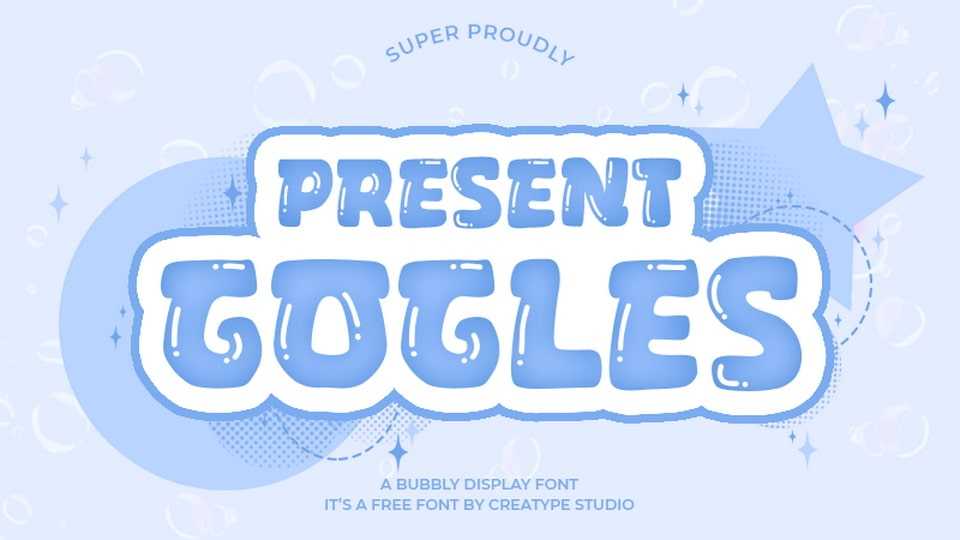
Download Gogles font, a playful, quirky hand-crafted cartoon font that gleams with a glossy, almost three-dimensional finish, creating a lighthearted, friendly vibe.